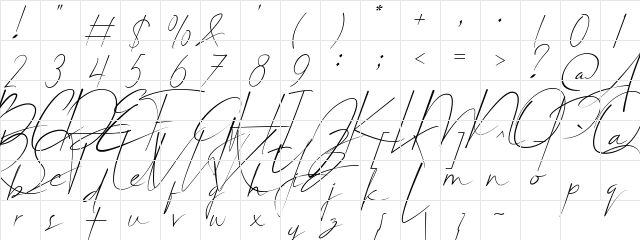
Belligiant Regular
| Designer | lemonthe 2020_Dwi Ahidian |
Design Context for Belligiant Typeface
Belligiant is a composed and adaptable typeface that performs quietly and consistently across a wide range of design contexts.